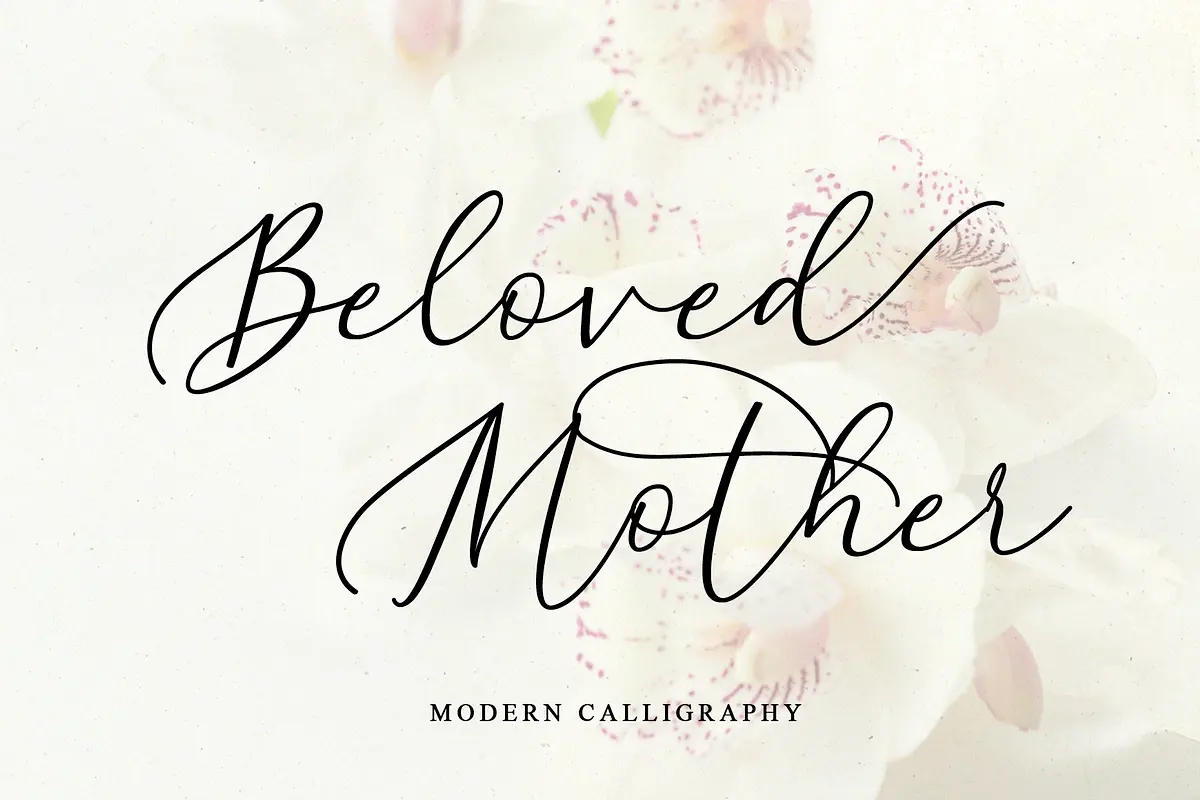
Beloved Mother | Calligraphy Font Free Download
Beloved Mother | Calligraphy Font Free Download is a beautifully crafted script font that radiates elegance, warmth, and heartfelt emotion. Please note: you must purchase this font for commercial use, but you can test it through a free download. With its flowing strokes and delicate flourishes, Beloved Mother is perfect for wedding invitations, heartfelt quotes, branding, greeting cards, and any design that calls for a personal, handwritten touch.
This font brings a refined yet emotional presence to your typography, ideal for projects that aim to convey love, gratitude, and grace. Whether you’re designing a keepsake message or an elegant logo, Beloved Mother | Calligraphy Font Free Download adds a touch of timeless beauty. Compatible with Adobe Illustrator, Photoshop, Canva, and other major platforms, it’s easy to use and instantly impactful. Download it now for personal use and let your designs speak from the heart with Beloved Mother.